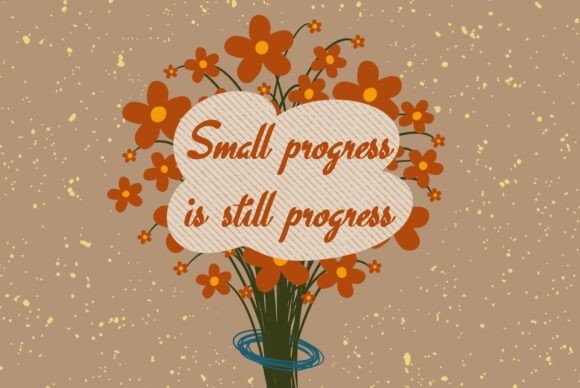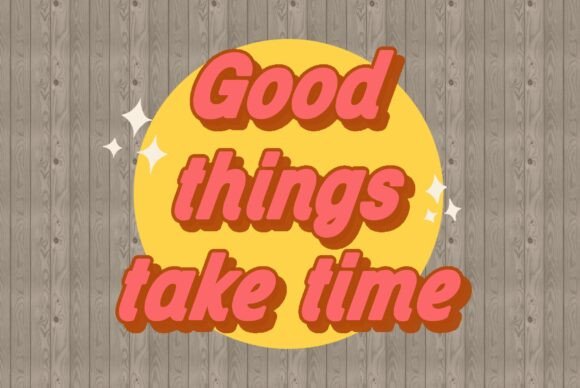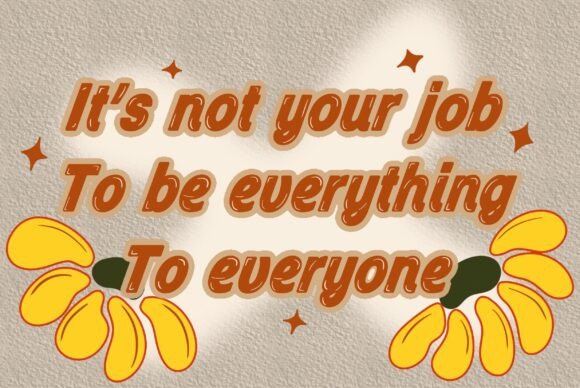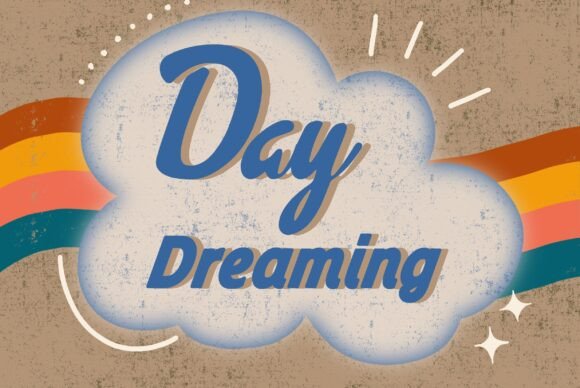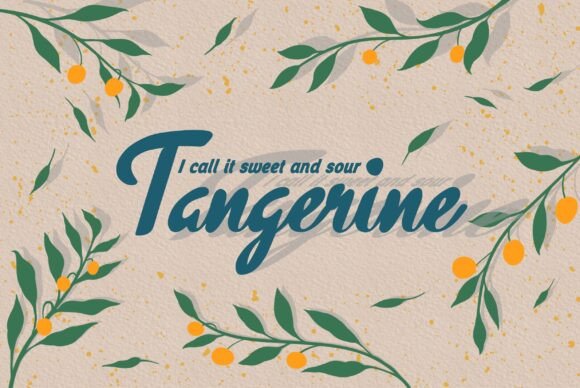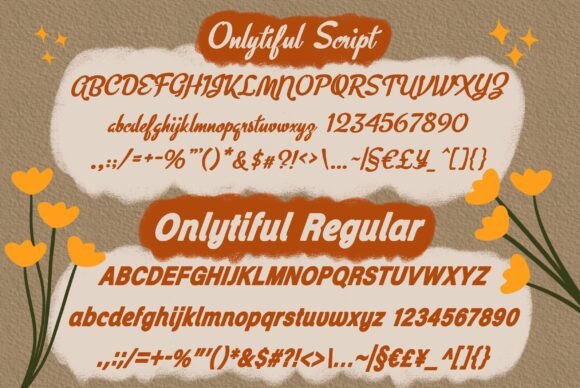
Introduction to Onlytiful Font
Have you ever been stuck on a creative project, searching for the perfect font to give it that extra oomph? I’m sure many designers can relate to this feeling. As you browse through countless options, you come across a font that catches your eye – only to realize it’s not quite what you need. But what if I told you that there’s a font collection that can solve this problem? Introducing the Onlytiful Font, a versatile collection that combines the elegance of cursive script with the clarity of modern design.
With its unique blend of styles, Onlytiful Font is a valuable resource for designers. Not only does it offer a free download option, but it also provides a transparent background, making it perfect for creative projects. Whether you’re working on a logo, poster, or branding material, Onlytiful Font is a high-quality design resource that can elevate your work to the next level.
Key Features of Onlytiful Font
- Unique, handcrafted design for creative projects, available for free download
- High-quality font with transparent background, ideal for use on various backgrounds
- Perfect design resource for graphic designers, digital artists, and anyone looking for a stylish, modern font
Honest Review: Onlytiful Font
As a designer, I’m always on the lookout for high-quality fonts to enhance my creative projects. I recently came across the Onlytiful Font, and I’m excited to share my thoughts on this design resource.
What works well: ✨ I appreciate the clean and elegant design of the Onlytiful Font. It’s perfect for projects that require a touch of sophistication. The font is highly customizable, allowing me to adjust the size, color, and style to suit my needs. I also love that it’s available for free download, making it an excellent resource for designers on a budget.
What doesn’t work well: ⚠️ While the Onlytiful Font is a great addition to any design project, it’s not ideal for projects that require a transparent background. The font’s design doesn’t lend itself well to transparent backgrounds, which can be a limitation for designers who need to create complex designs.
Overall, I’m impressed with the Onlytiful Font’s design and customization options. It’s a great resource for designers who want to add a touch of elegance to their projects. While it may not be suitable for every design scenario, I highly recommend it as a design resource for creative projects.
Tips for Getting the Most Out of Onlytiful Font
Use the Onlytiful Font on a transparent background to create a clean and modern design. Experiment with different font sizes and styles to add depth and interest to your design. You can also combine the Onlytiful Font with other design resources, such as images and shapes, to create a unique and creative project.
The Onlytiful Font is ideal for a variety of design projects, including logos, business cards, and social media graphics. It’s also great for creating presentations, reports, and documents that require a high-quality and professional font.
Alternatives to Onlytiful Font
Montserrat is a modern sans-serif font ideal for creative projects that require a high-quality, clean design. It is available for free download and features a transparent background, making it suitable for web design and print materials. Montserrat is a great alternative to Onlytiful Font when you need a more contemporary look for your design.
Great Vibes is a beautiful, elegant script font perfect for design projects that require a touch of sophistication. It is available for free download and features a transparent background, making it easy to use in creative projects. Great Vibes is a great alternative to Onlytiful Font when you need a more refined and luxurious look.